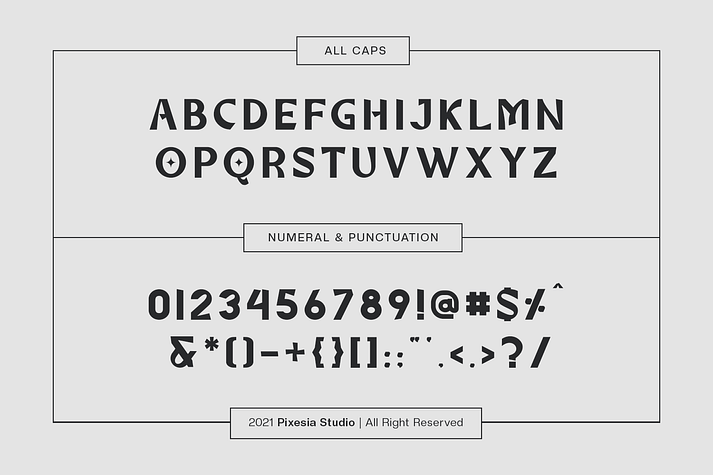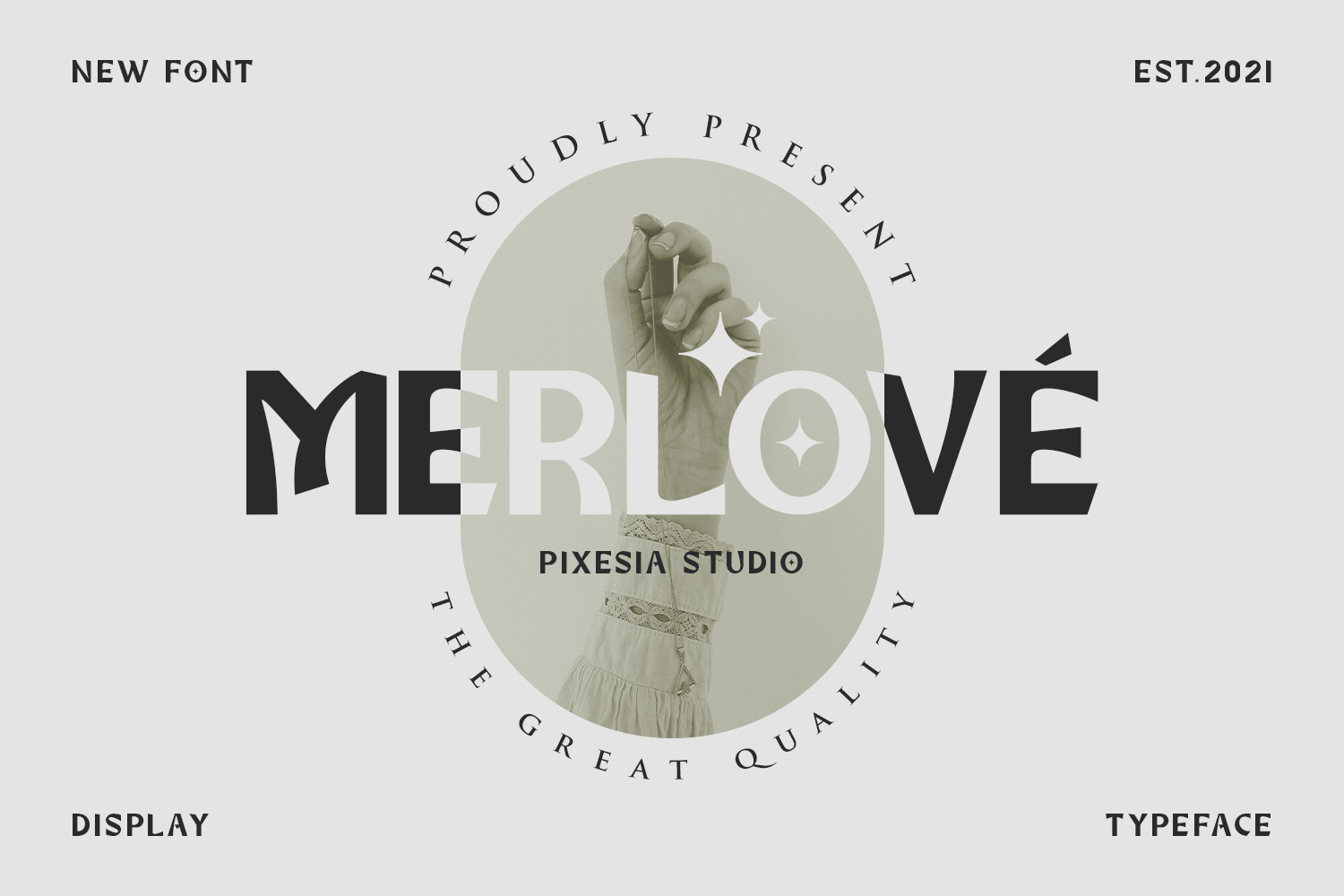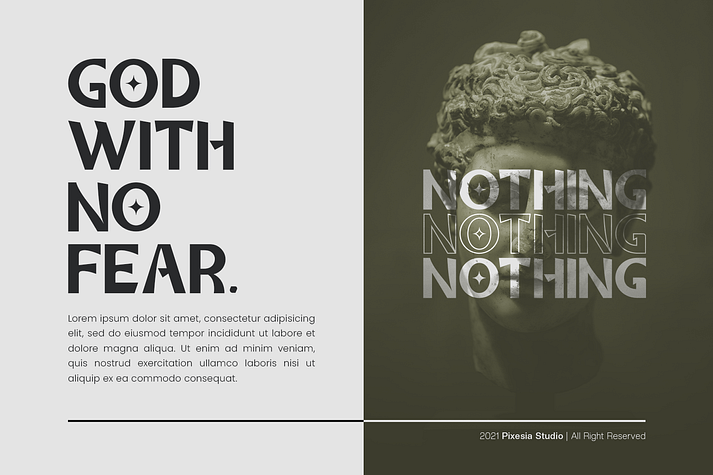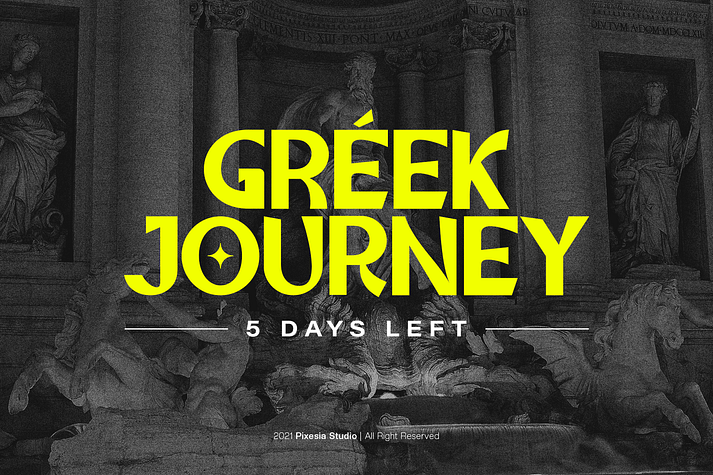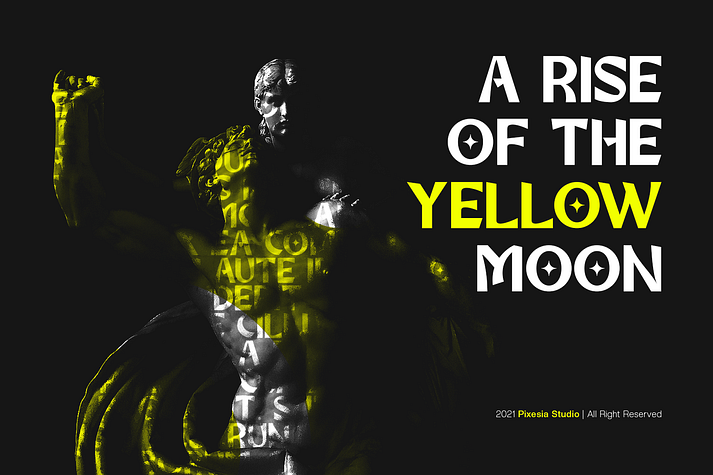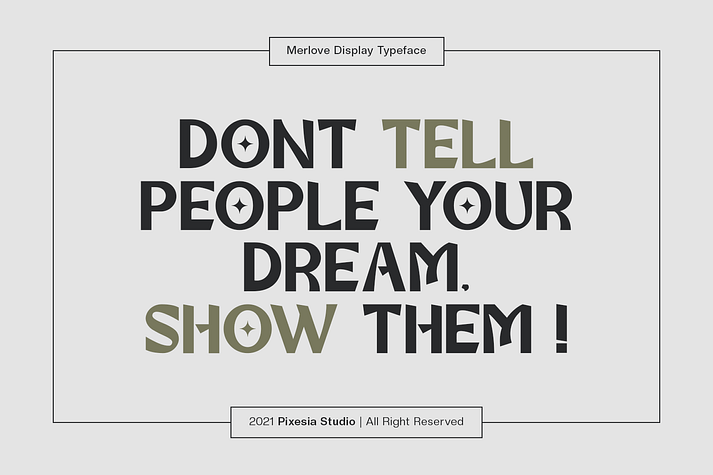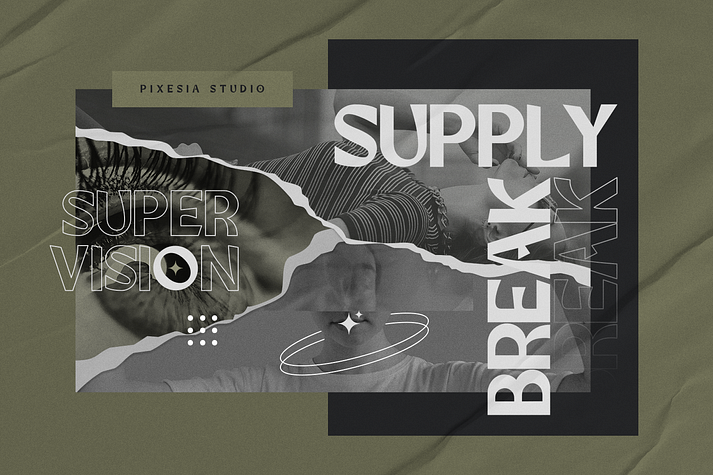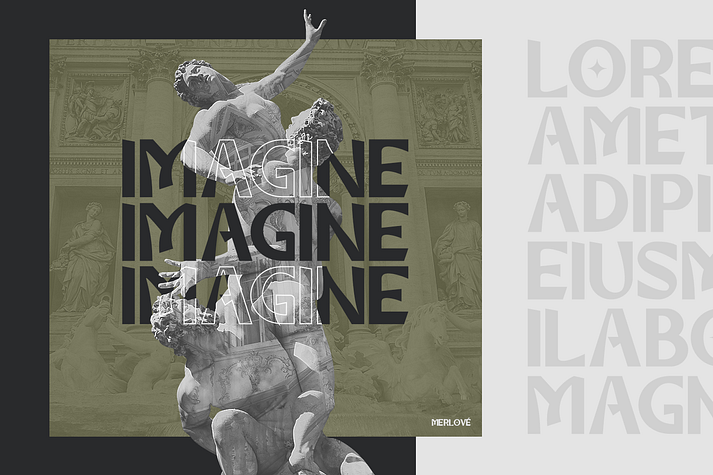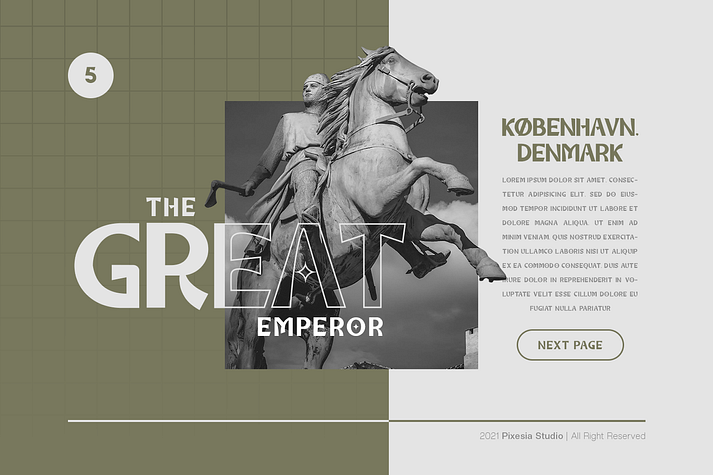
Merlove
Merlove is a display sans and hand display font family published by Pixesia Studio.
Introducing Merlove - A Contemporary Display Font
Merlove is a strong and contemporary display font. It has an unique vintage style, that is perfect for branding. Add it to your most creative ideas and notice how it makes them come alive!
• Stylistic Alternates
• ALL Caps
• Numbering and Punctuations
• Multilingual Support